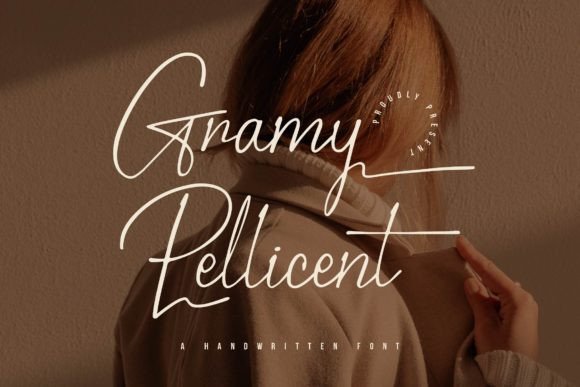
Introduction to Gramy Pellicent Font
Grammy Pellicent is a lovely handwritten font that looks warm and personal.
Its smooth, flowing letters give a friendly and inviting feel, making it great for notes, invitations, and anything that needs a personal touch .
Gramy Pellicent Font offers exceptional quality and versatility, making it a valuable addition to your design toolkit. Whether you’re creating for personal projects or commercial use, Gramy Pellicent Font delivers professional results.